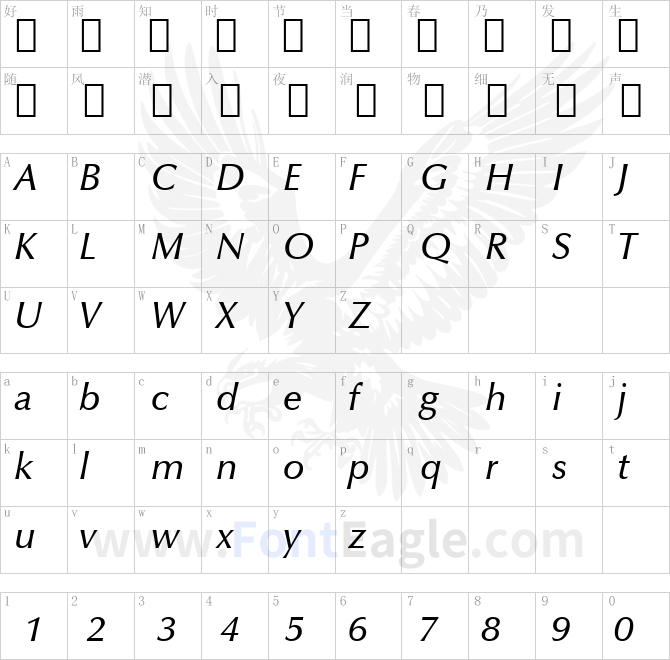
- Font name:ZapfHumnst Dm BT
- Font Subfamily:Demi Italic
- Font Subfamily ID:Zapf Humanist 601 Demi Italic
- Font Full Name:Zapf Humanist 601 Demi Italic BT
- Postscript:ZapfHumanist601BT-DemiItalic